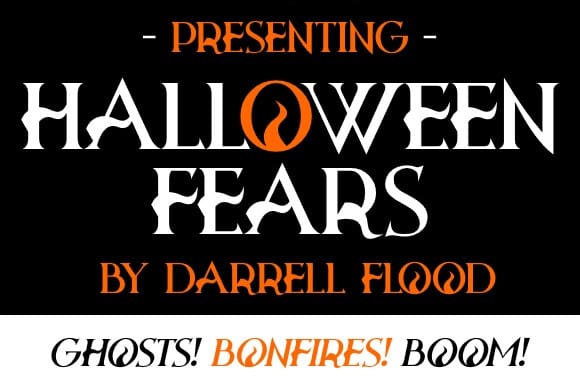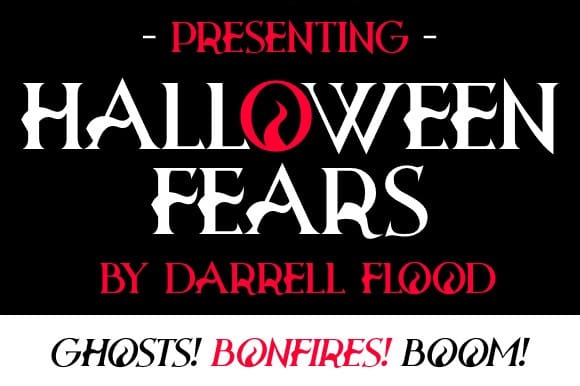
Halloween Fears Font
Halloween Fears Font, An exquisite, archaic font in a decorative Halloween style. Perfect for horror themes, seasonal settings and general high impact use!